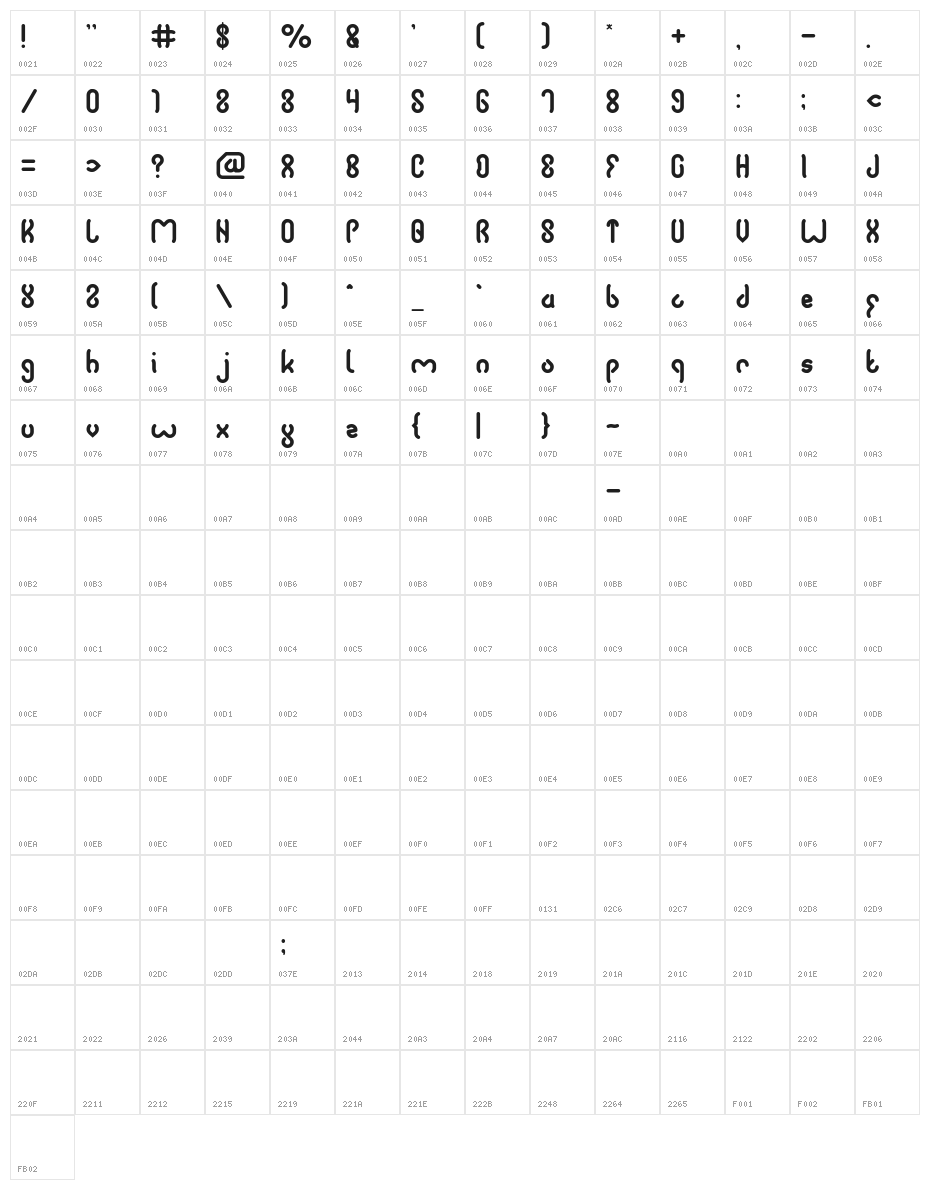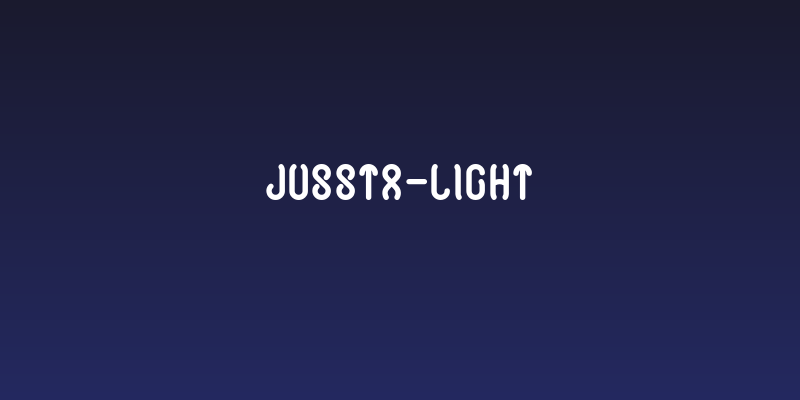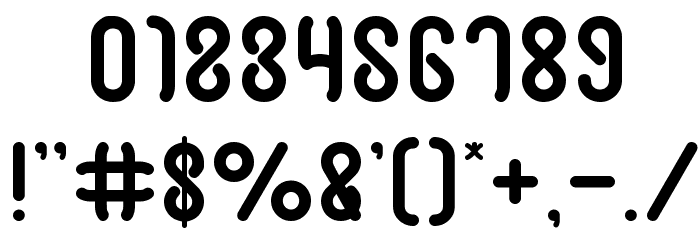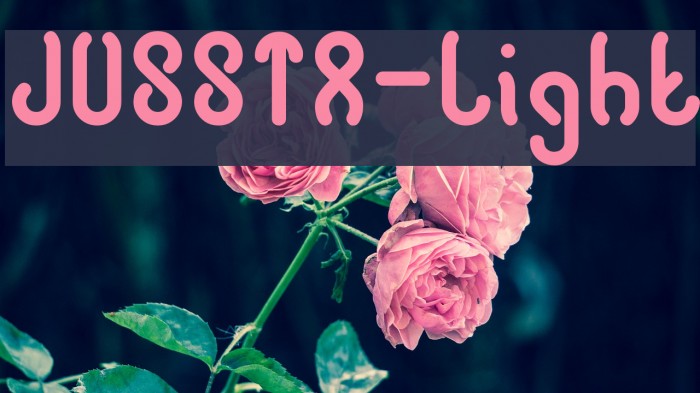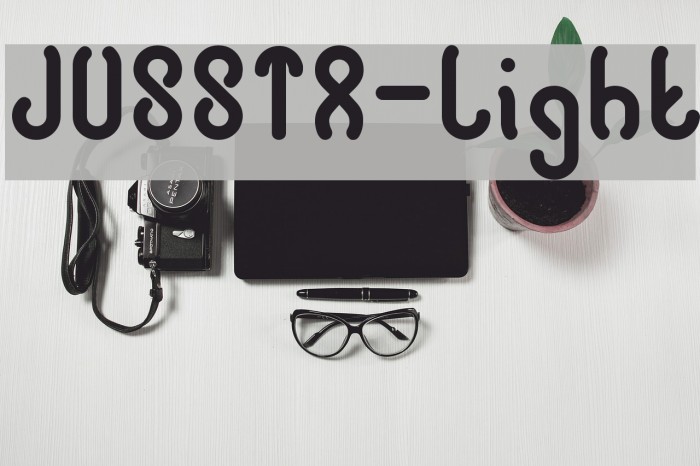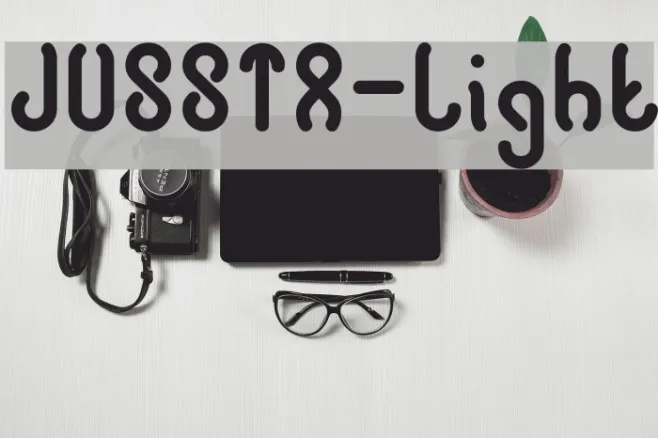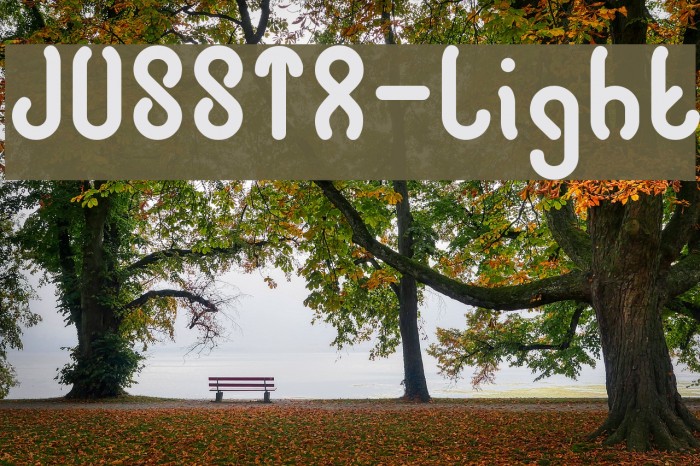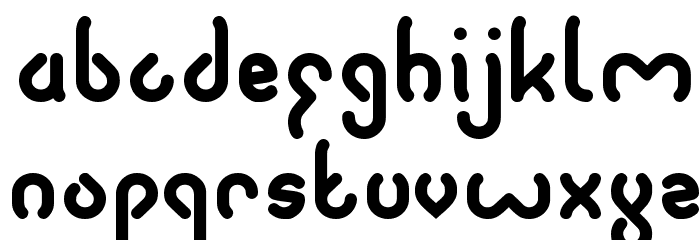
JUSSTA-Light Font
JUSSTA-Light Description
This font features a unique and playful design with rounded, interconnected strokes that create a sense of fluidity and movement. The characters are bold and have a consistent thickness, giving them a strong presence on the page. The uppercase and lowercase letters maintain a cohesive style, with some characters exhibiting creative twists and turns that add to the font's charm. The numerals and special characters are equally distinctive, ensuring a harmonious look across all text elements. This font's style is both modern and whimsical, making it suitable for a variety of creative applications.
| Overall Style | Modern, Whimsical |
| Use Case | Headlines, Logos, Creative Projects |
| Proposed Projects | Ideal for branding, packaging, children's books, and creative advertising campaigns. |